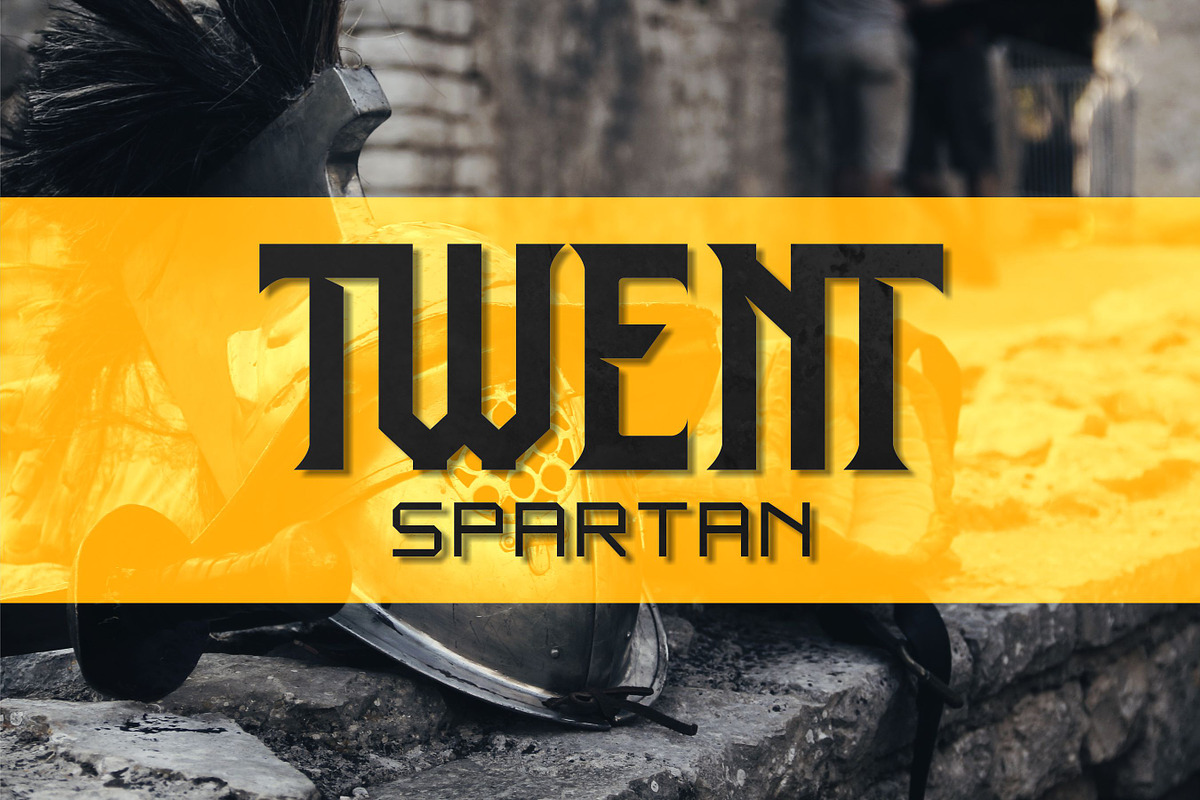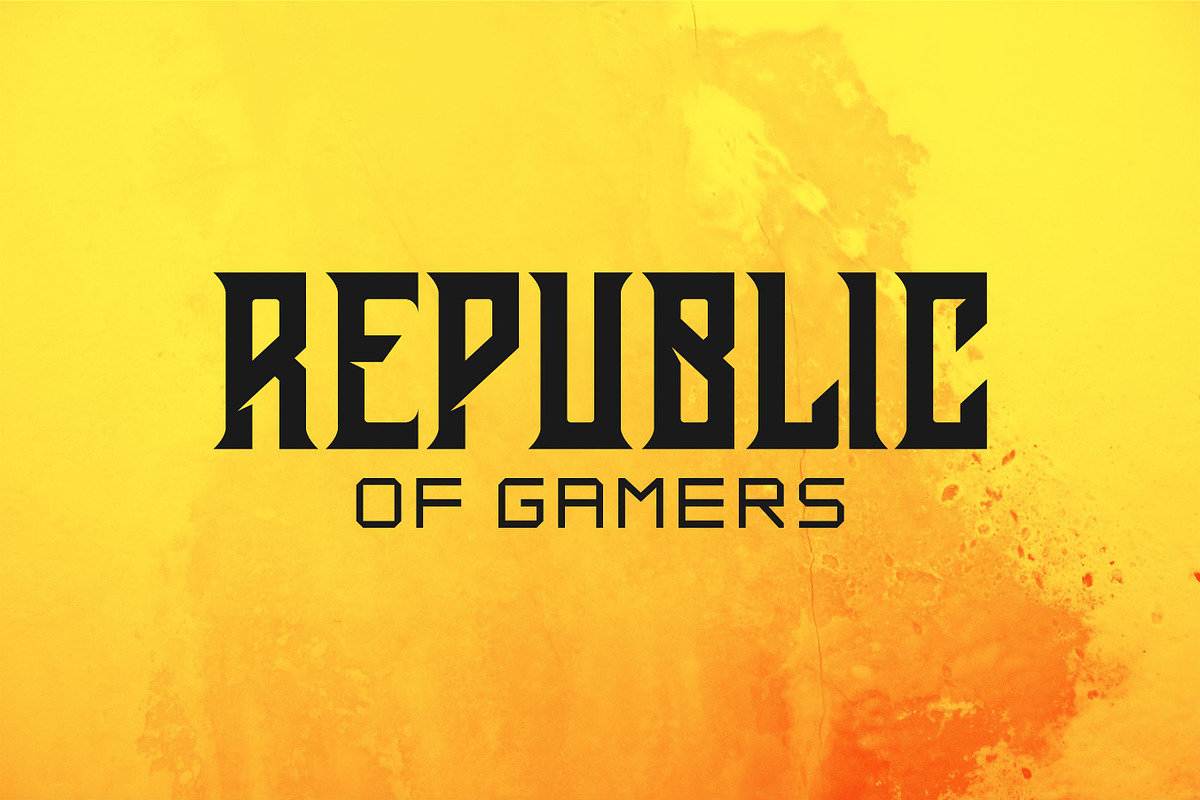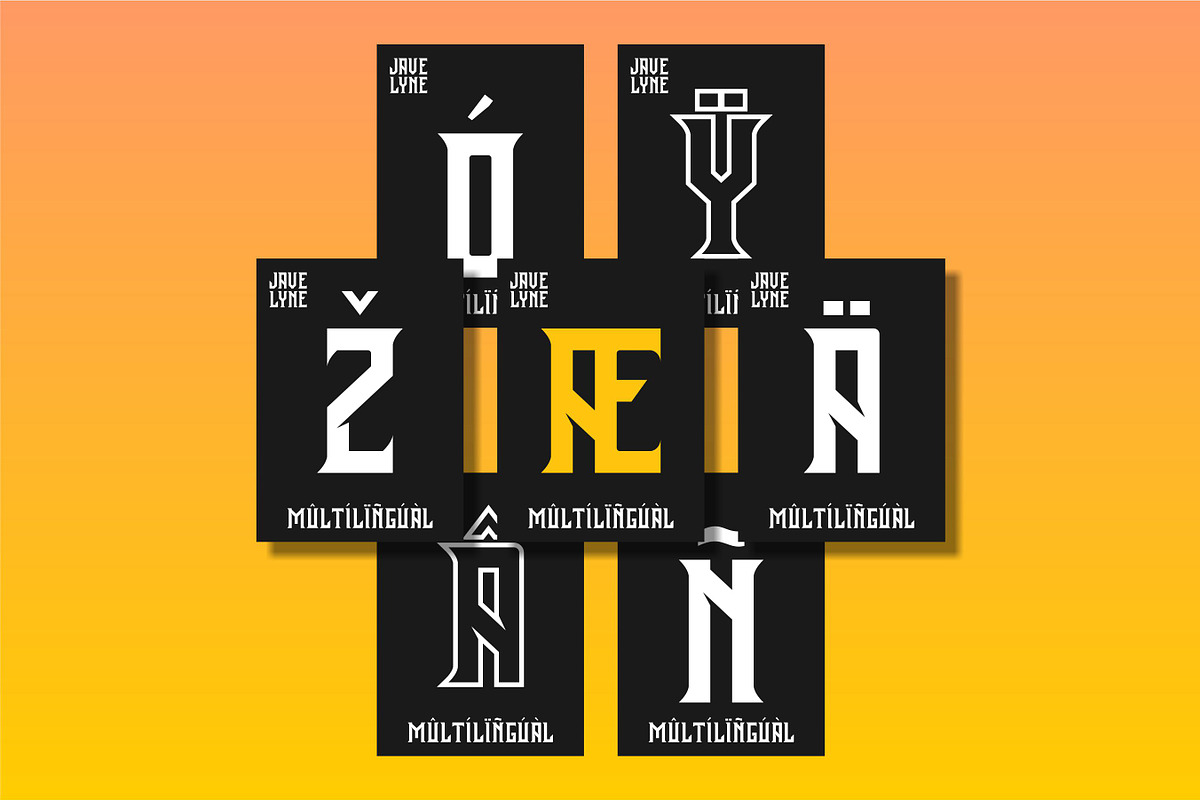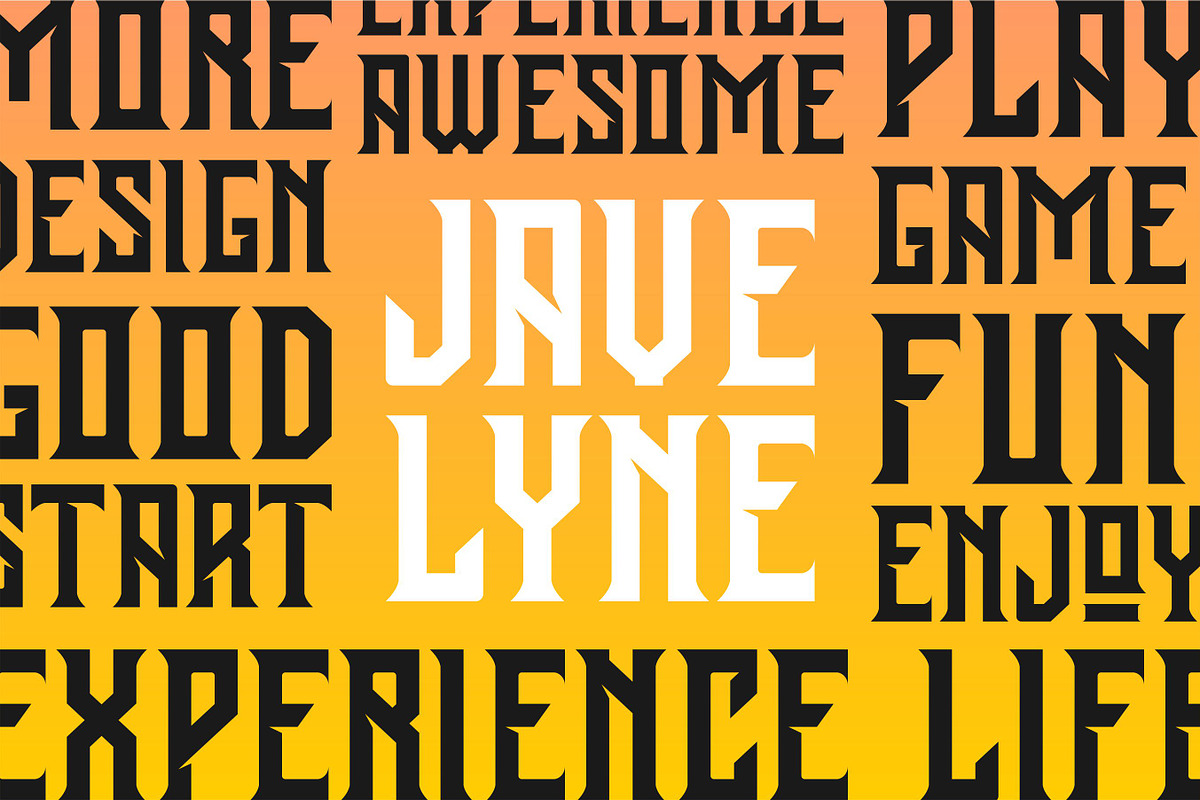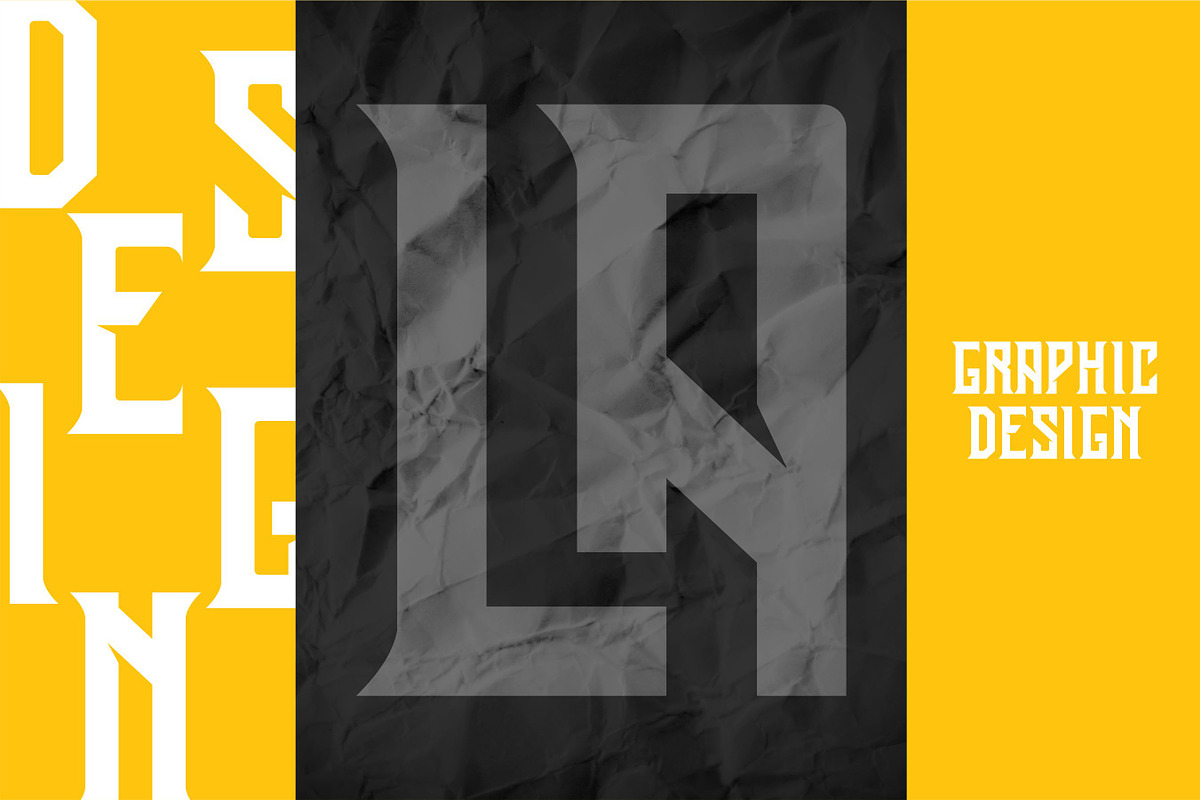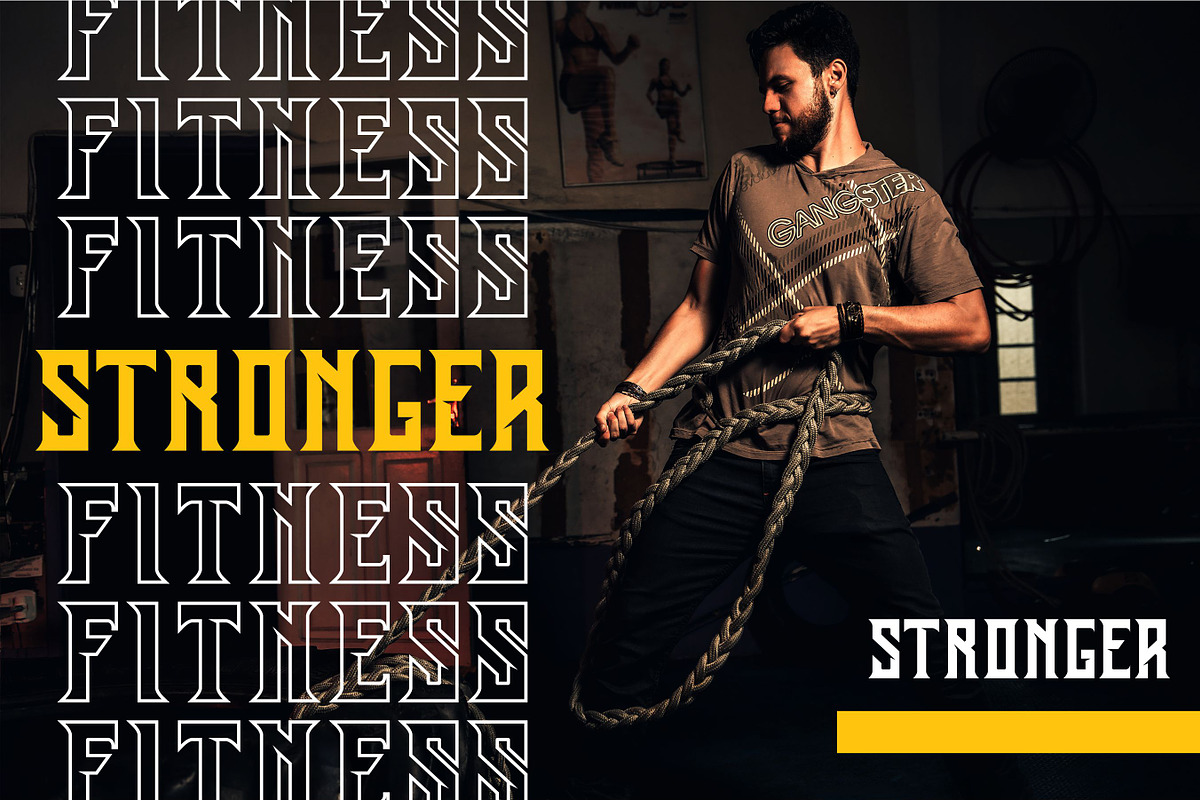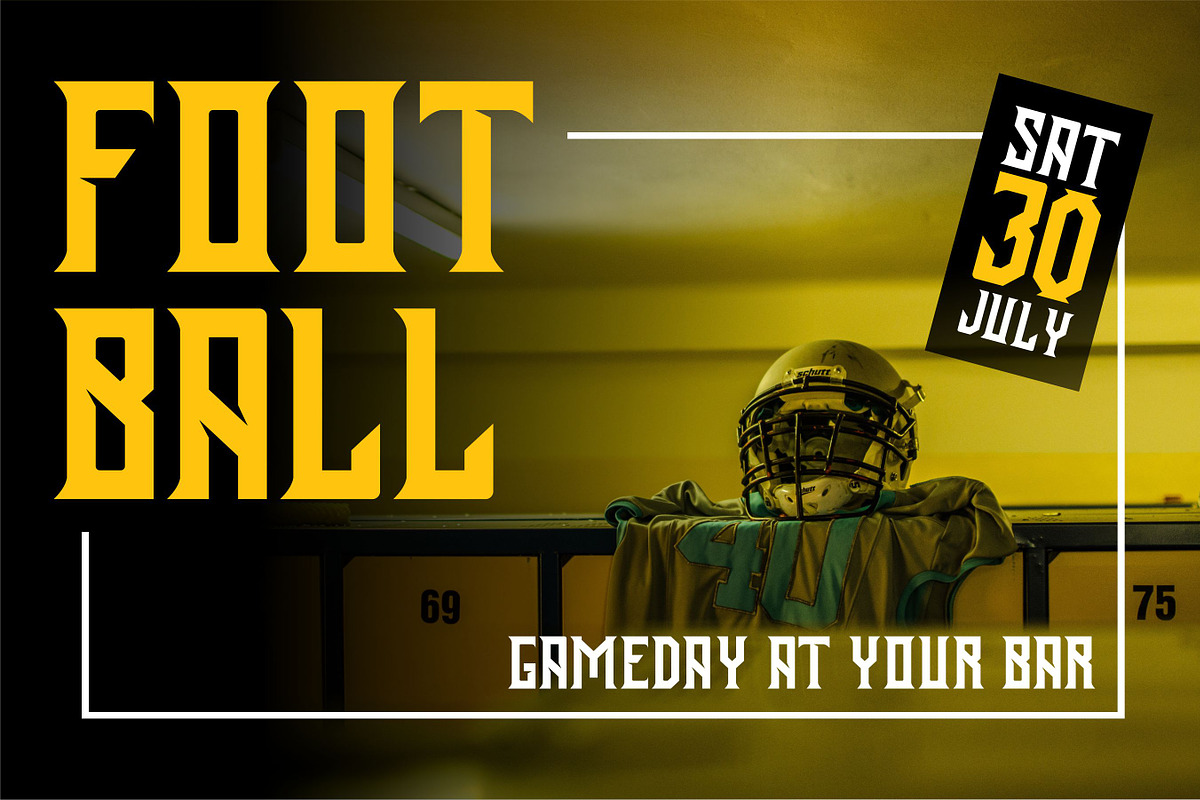
JAVELYNE FONT SQUARE DUO
Introducing JAVELYNE FONT SQUARE DUO, we produce these fonts for the appreciation to our clients AQR Studio who has an extraordinary work of producing Esports Logo Mascot.
With a bold and strong look that matches sports branding and Esports Games, this font is also very suitable for baseball, hockey, basketball, Esports Squad, and many more.
This font has three variations of JAVELINE Regular - JAVELINE Outline - JAVELINE ALL CAPS, and has a more unique and unusual style than what you already have that you can explore.
Available in uppercase, lowercase letters, symbols, numbers, punctuation marks and including many glyph variants. Also suitable for shirts, jackets, hats, or anything related to the merchandise.